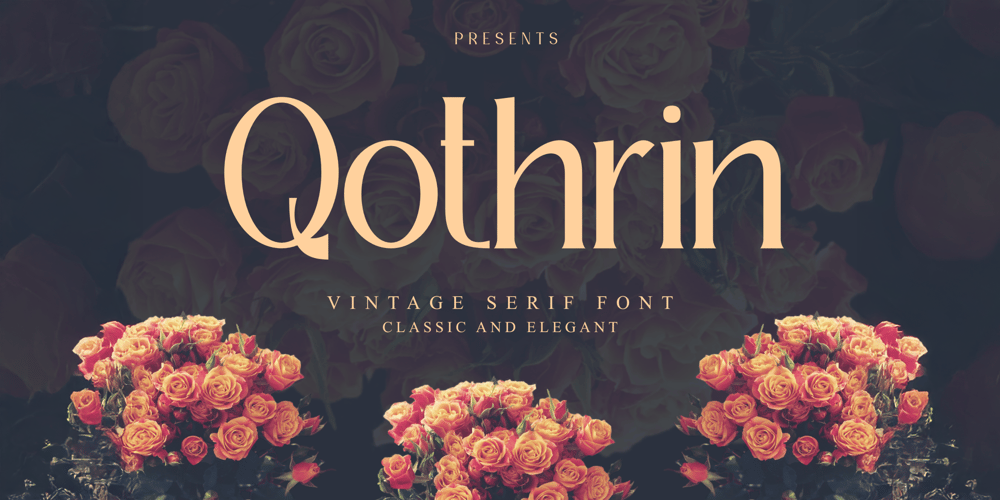
Qothrin
Qothrin font
Qothrin Font Family was designed by Dani Irawan and published by GraphTypika. Qothrin contains 2 styles and family package options. Introducing QothrinQothrin is a Vintage Classic Display Serif Font that exudes timeless elegance, blending intricate Art Deco-inspired details with bold, high-contrast strokes. Its ornate serifs and stately structure evoke the sophistication of early 20th-century typography, making it ideal for luxury branding, editorial headlines, packaging, and invitations. Perfect for designers seeking a touch of nostalgic grandeur. Qothrin balances vintage charm with modern versatility, elevating projects that demand a refined, authoritative presence. Whether used in logos, posters, or bespoke merchandise, this font adds a layer of craftsmanship and historical allure to any creative endeavor.